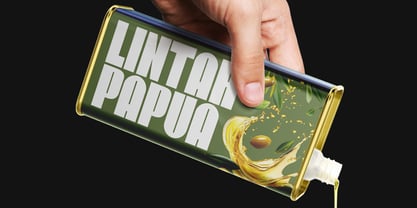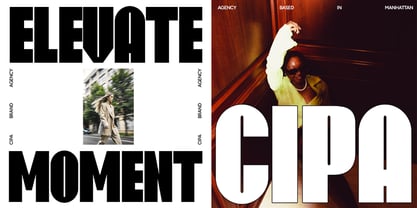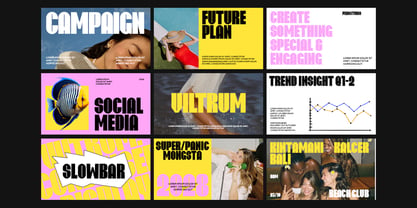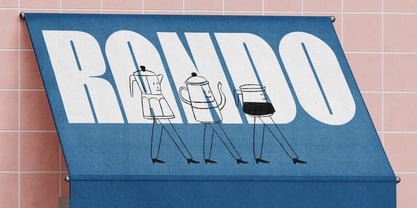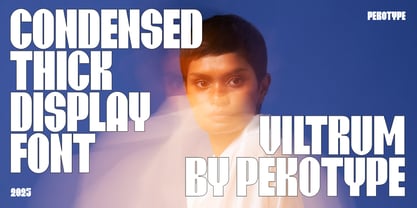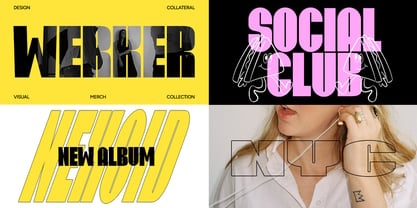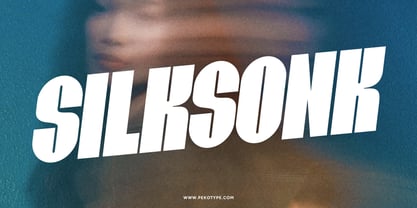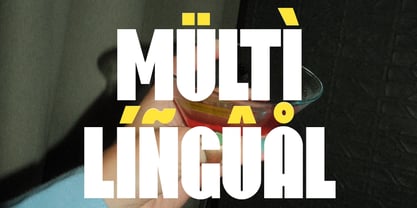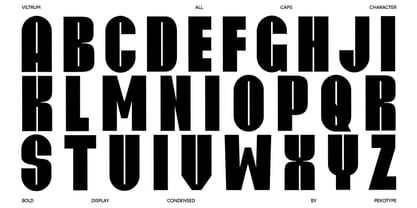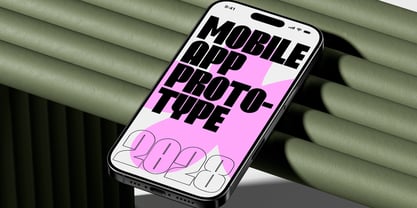
Viltrum
by Pekotype
The Viltrum Font Family was designed by Galang Bryan and published by Pekotype. Viltrum contains 1 styles. More about this family
VILTRUM is a bold condensed display font designed to make your text stand out. With thick strokes and a clean modern style, it is perfect for logos, posters, headlines, packaging, branding, and social media content. Its all-caps design creates a strong and professional look while remaining easy to read, making VILTRUM a great choice for creative projects that need a powerful and confident visual impact.
Designers: Galang Bryan
Foundry: Pekotype